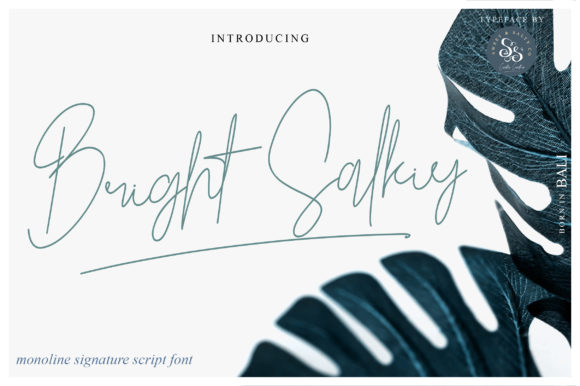
The Magical World of Bright Salkiy Font
A Personal Review of Bright Salkiy Font
- ✨ Timeless elegance: Bright Salkiy exudes a classic style that’s perfect for luxury brands, weddings, and high-end designs.
- ✅ Authentic calligraphy: The font’s authentic calligraphy feel adds a touch of warmth and personality to any design.
- 💫 Friendly feel: Despite its elegance, Bright Salkiy still manages to convey a friendly and approachable tone.
- 🎨 Versatility: This font is incredibly versatile and can be used for a wide range of design projects, from logos to social media graphics.
While Bright Salkiy is an amazing font, there are a few things to keep in mind:
- 🤔 Limited use in body text: Due to its script nature, Bright Salkiy might not be the best choice for long-form body text.
- ⚠️ Ligatures can be finicky: Some users might find the ligatures a bit tricky to work with, especially in certain design software.
The Backstory of Bright Salkiy Font
Bright Salkiy Font was created with a passion for elegance and authenticity. The designer aimed to craft a font that would capture the essence of timeless luxury while still feeling approachable and friendly. Inspired by traditional calligraphy, Bright Salkiy brings a touch of sophistication to any design project.
| Font Name | Bright Salkiy Font |
| Author | SweetSalty |
Q: What type of projects is Bright Salkiy Font best suited for?
A: Bright Salkiy Font is perfect for luxury brands, weddings, high-end designs, and creative projects that require a touch of elegance and friendliness.
Q: Does Bright Salkiy Font support OpenType features?
A: Yes, Bright Salkiy Font supports OpenType features, including ligatures, stylistic alternates, and glyphs. You can access these features in compatible design software like Adobe Photoshop or Illustrator.
Q: Can I use Bright Salkiy Font for body text?
A: While Bright Salkiy Font is beautiful, it’s not recommended for long-form body text due to its script nature. It’s best used for headlines, titles, or short paragraphs.